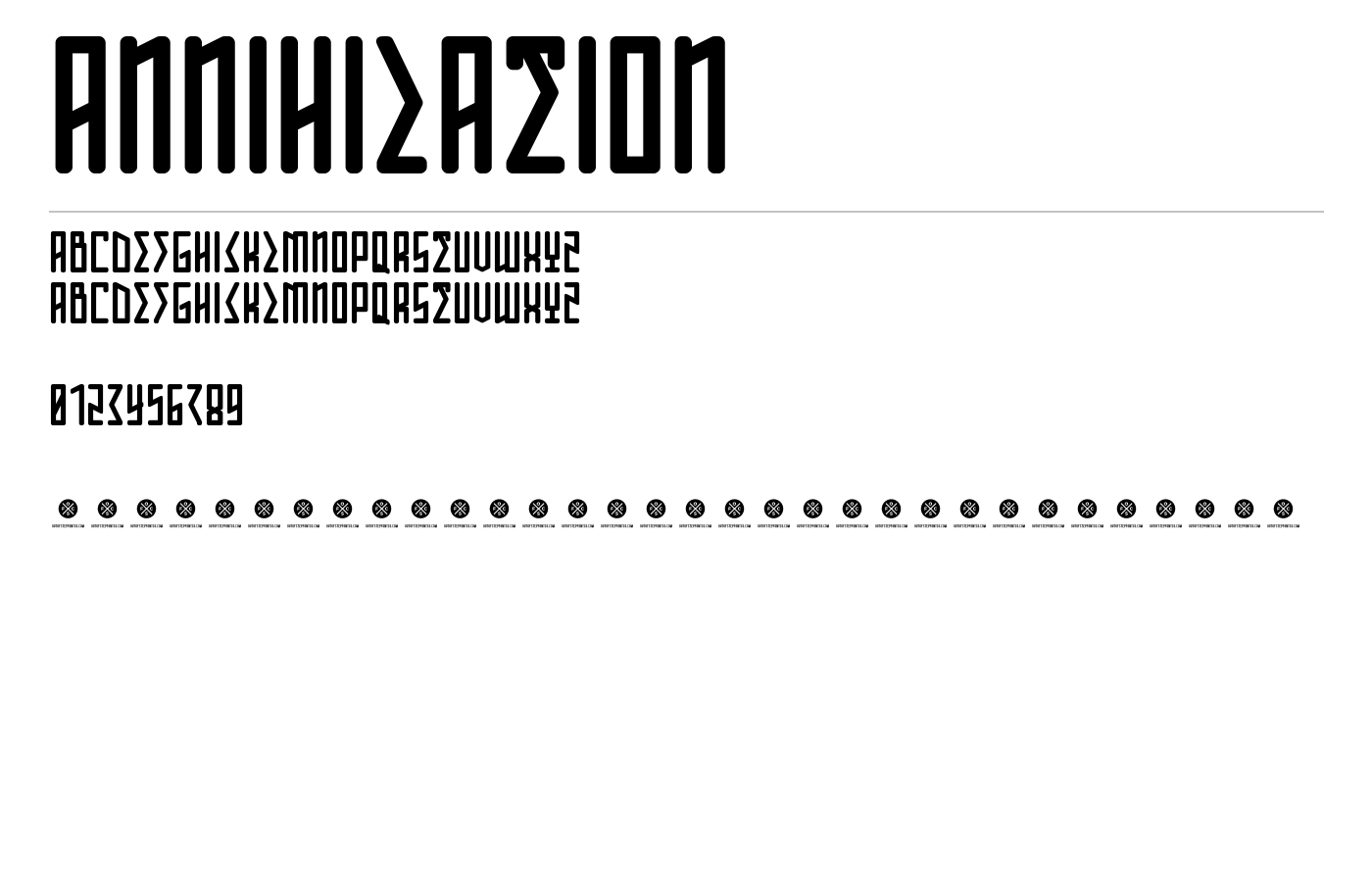
ANNIHILATION is a bold, condensed sans serif font with a futuristic, geometric vibe characterized by sharp angles and unique letterforms, such as stylized S and Z shapes. Its high contrast and tightly spaced design give it a striking, edgy personality that suits sci-fi, tech branding, and eye-catching headlines, making it ideal for projects needing a strong, modern impact.
ANNIHILATION Font
About ANNIHILATION Font